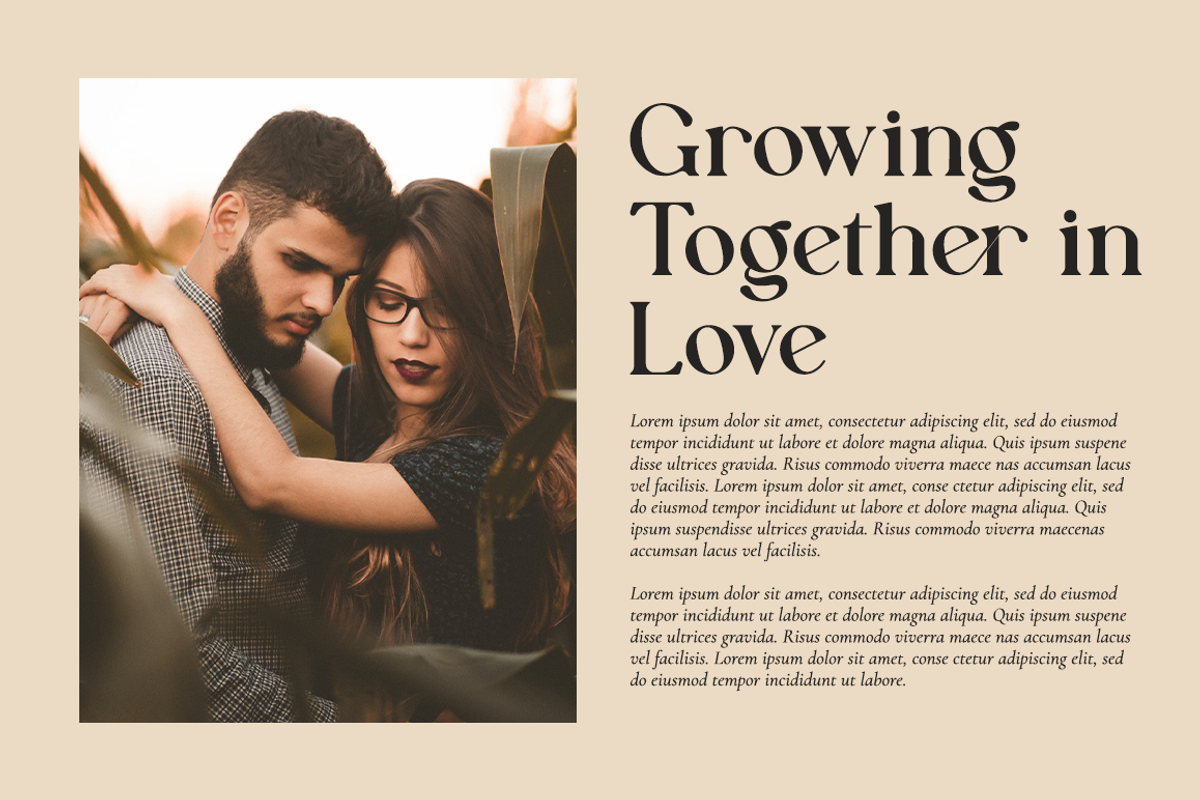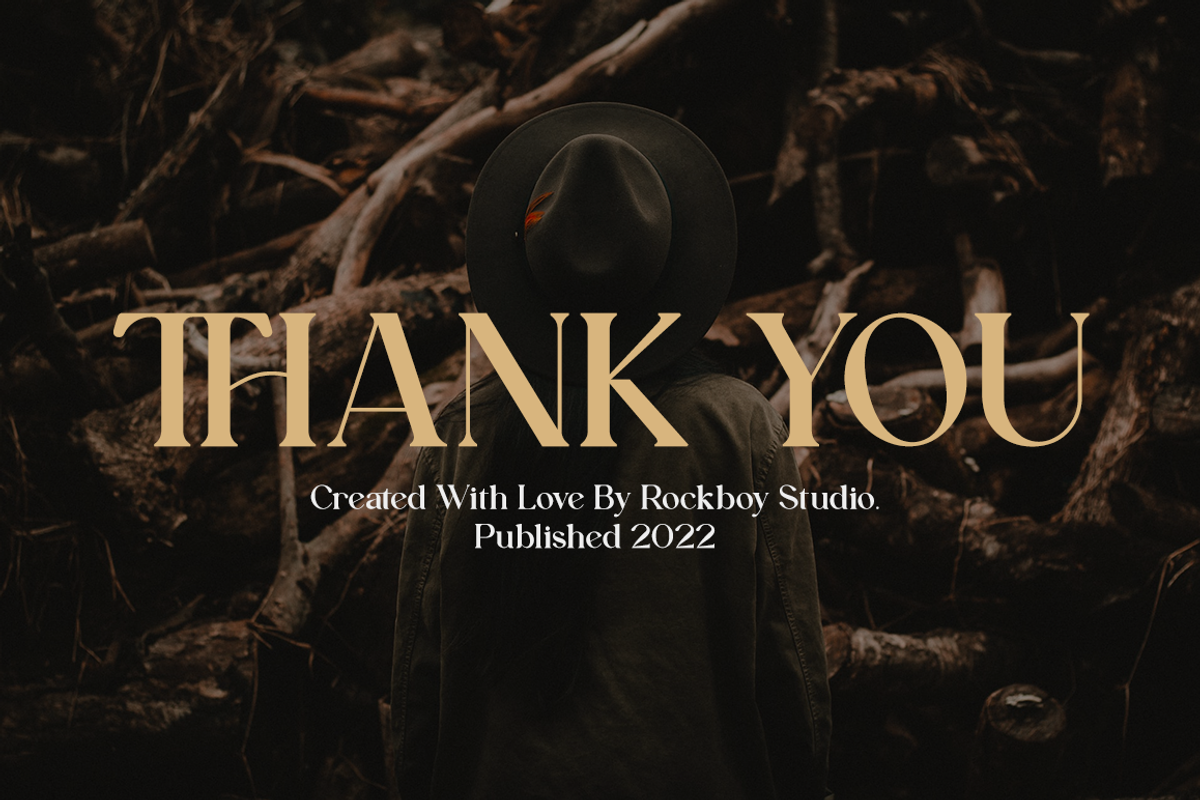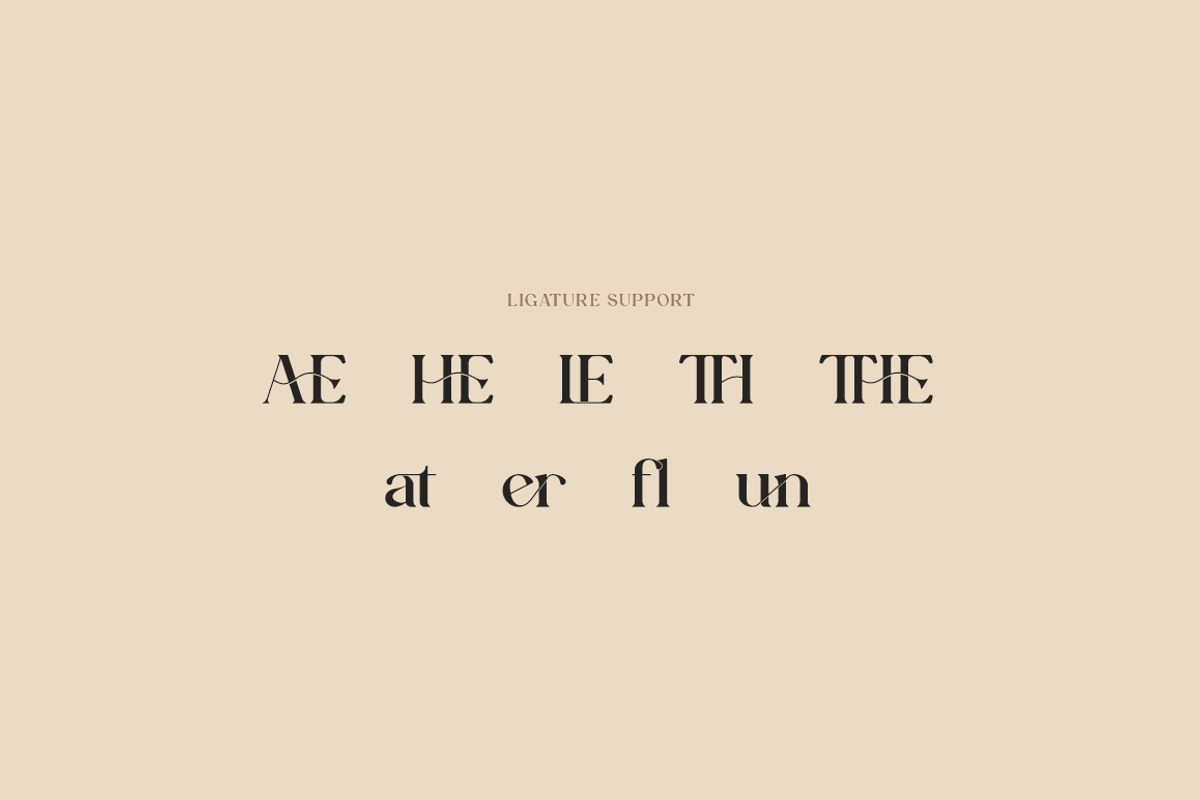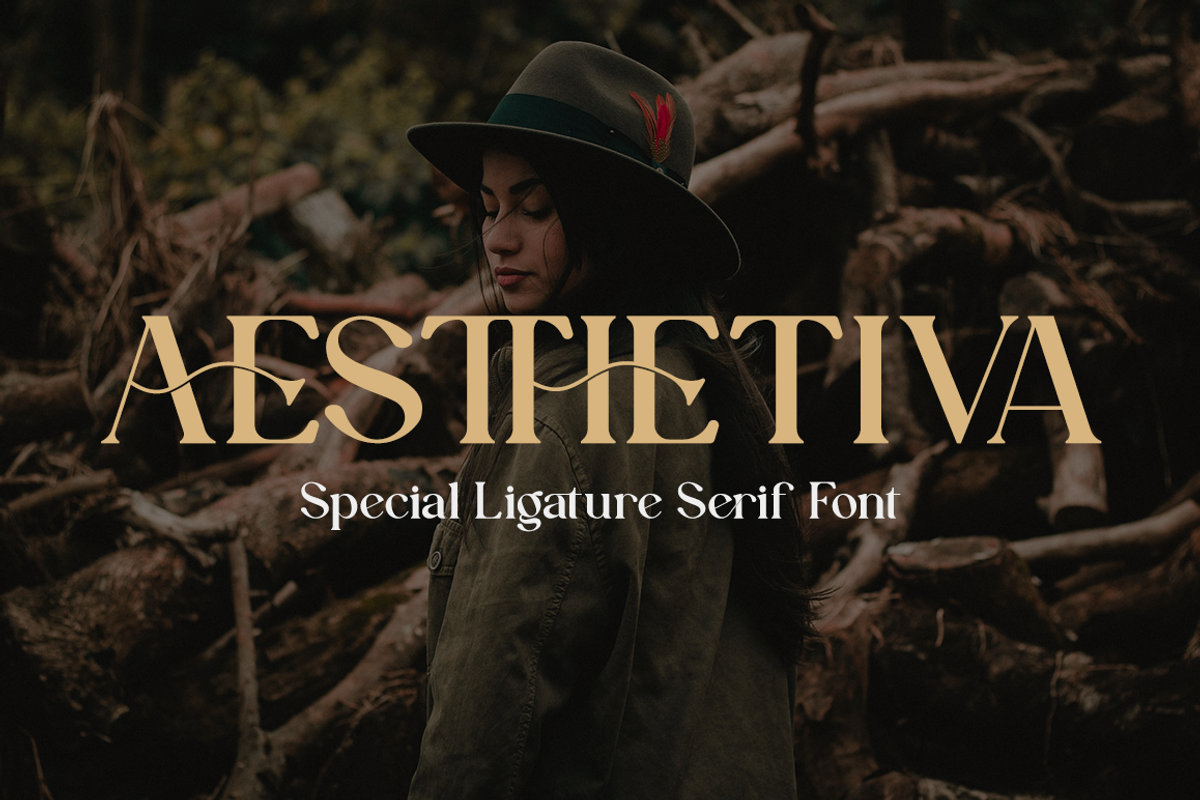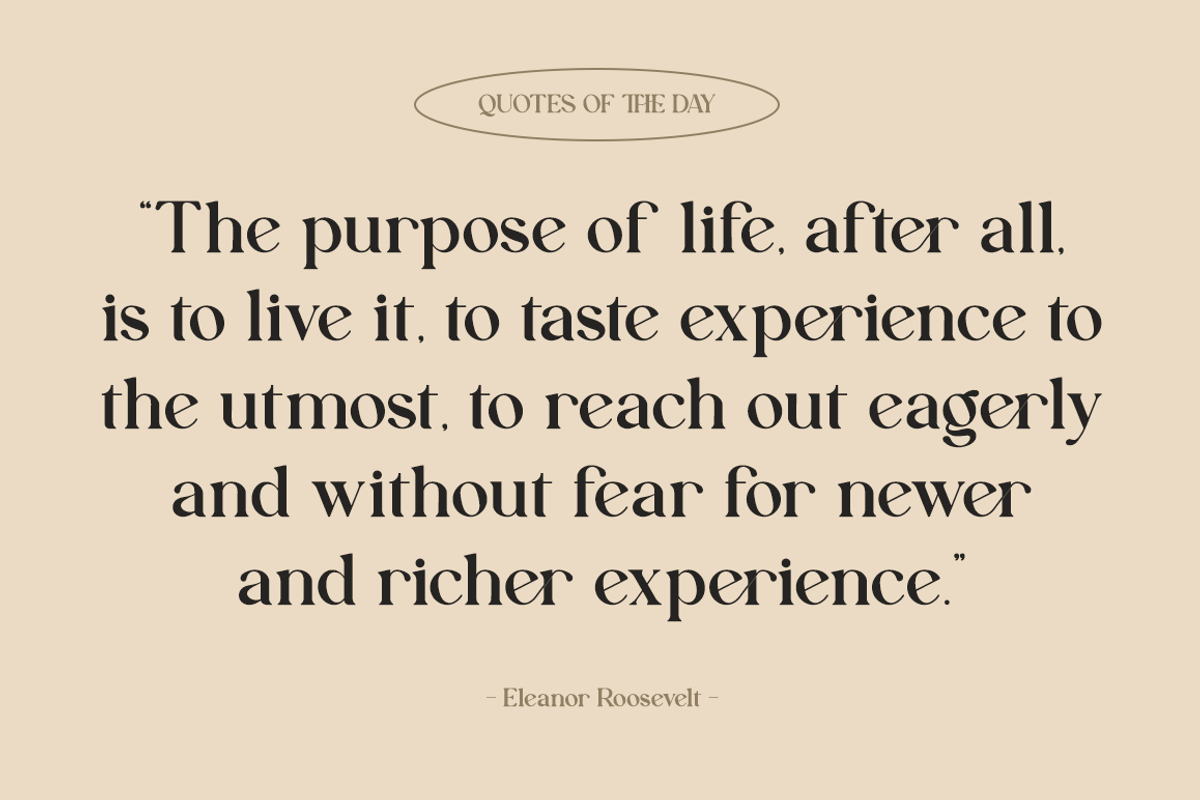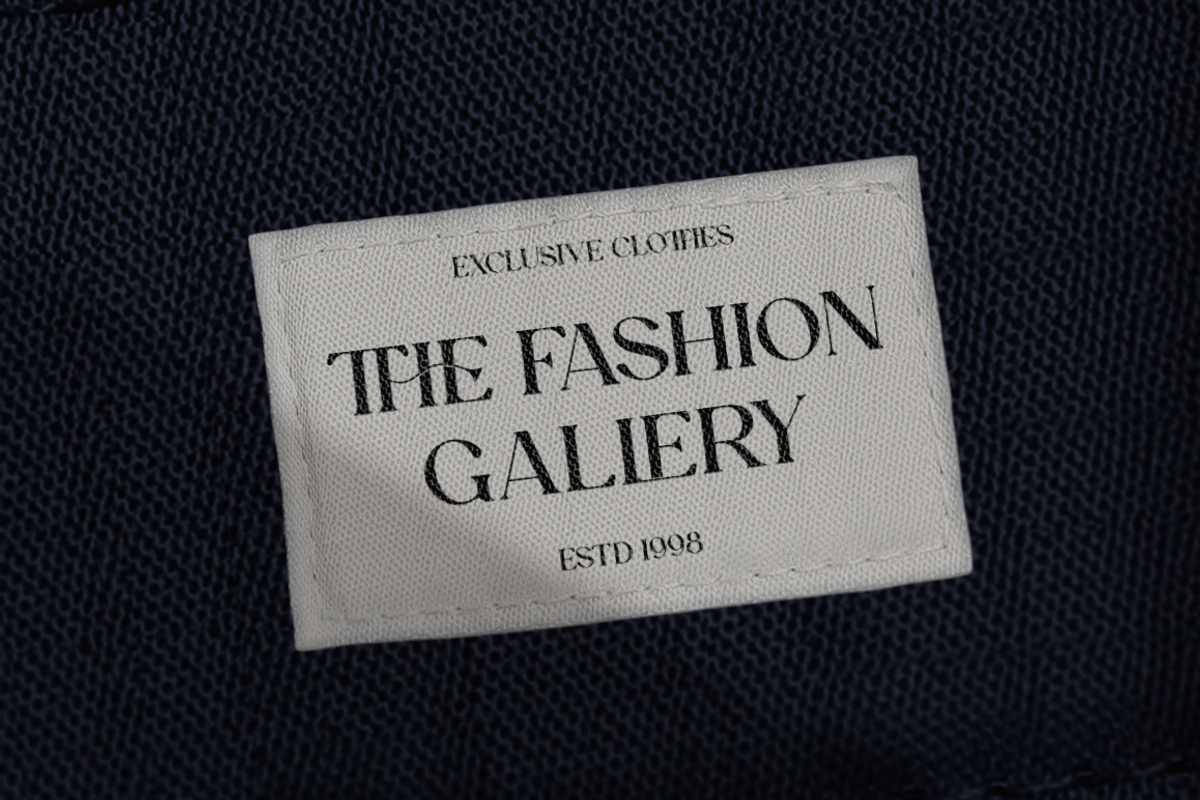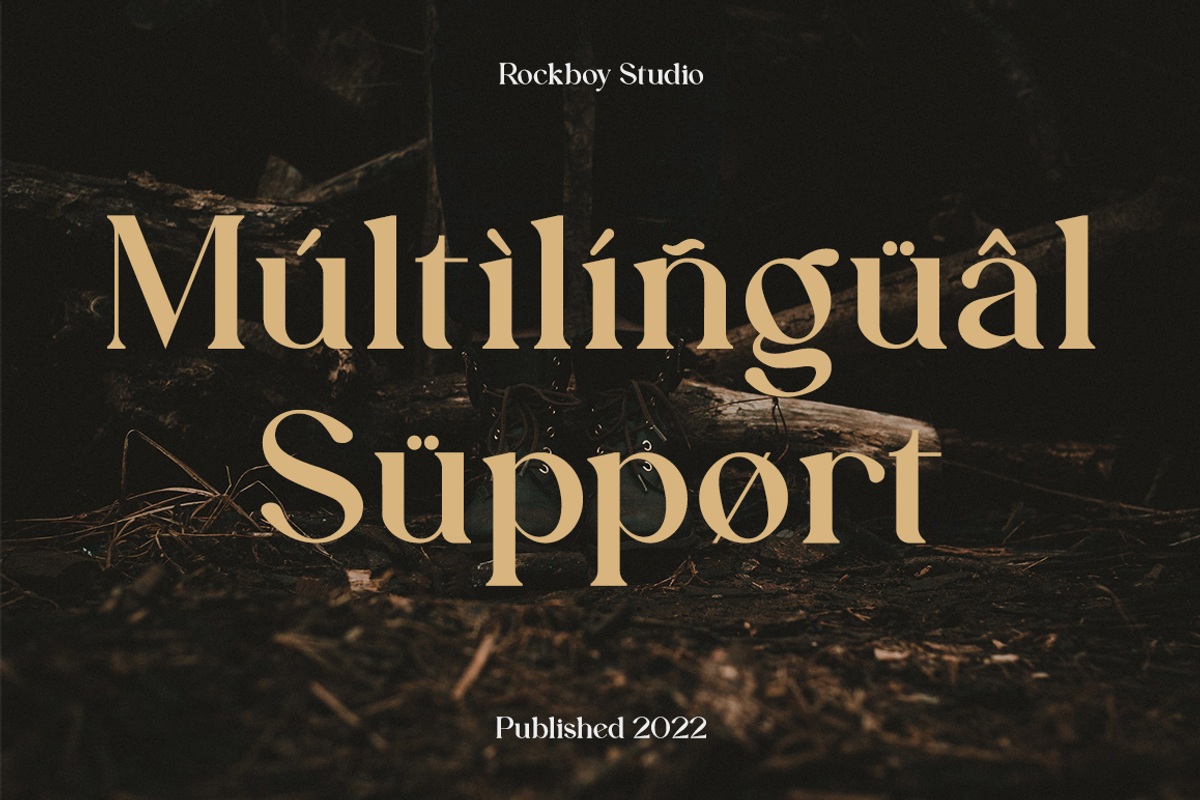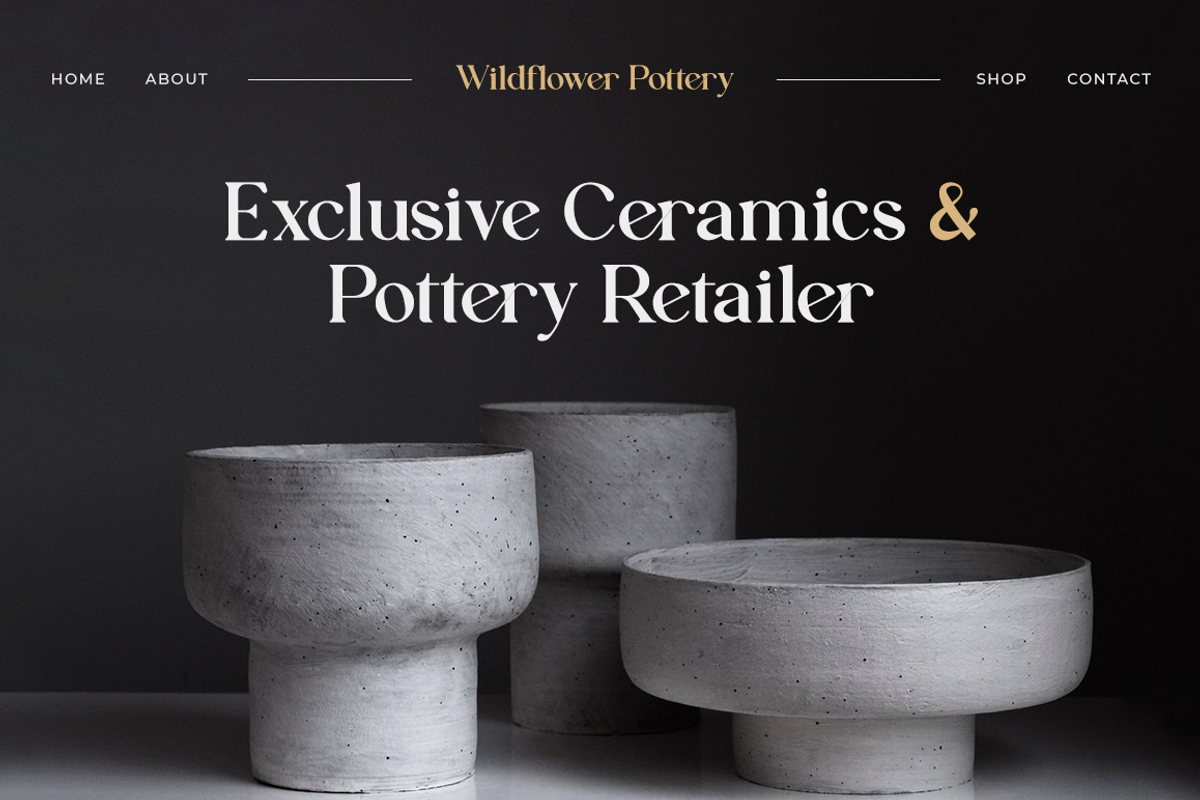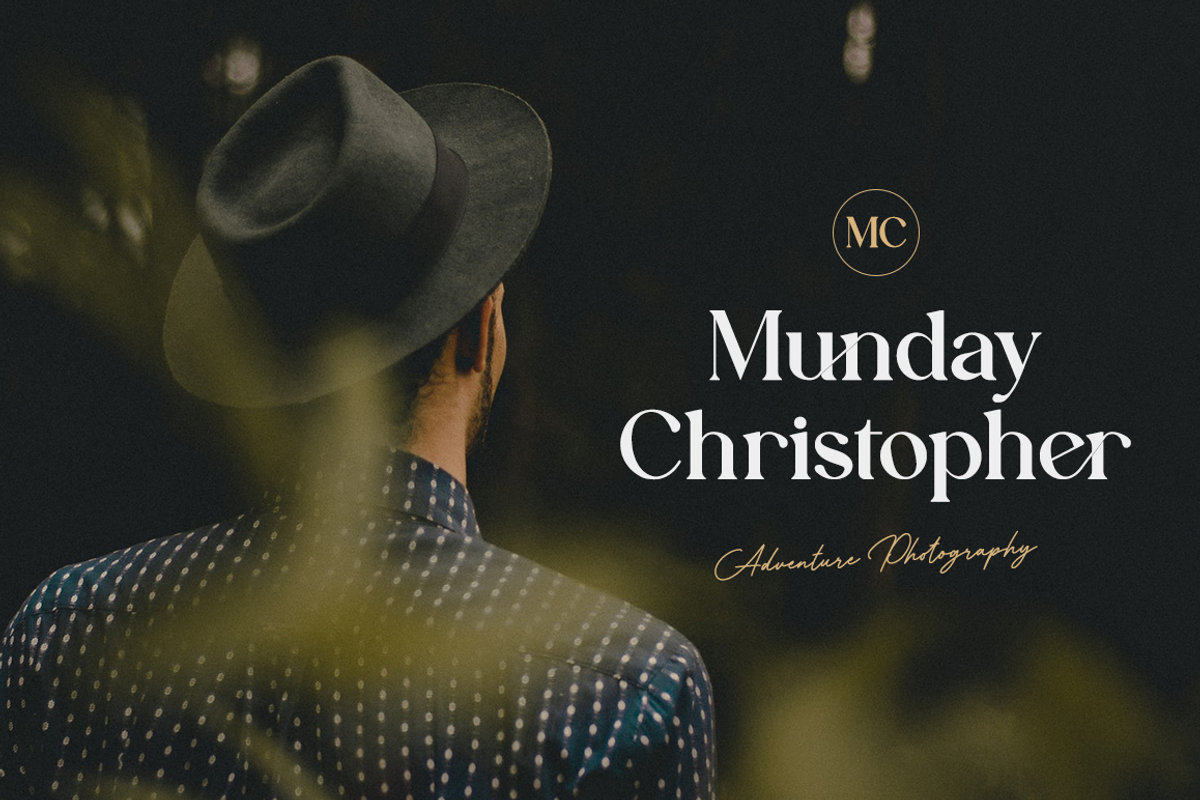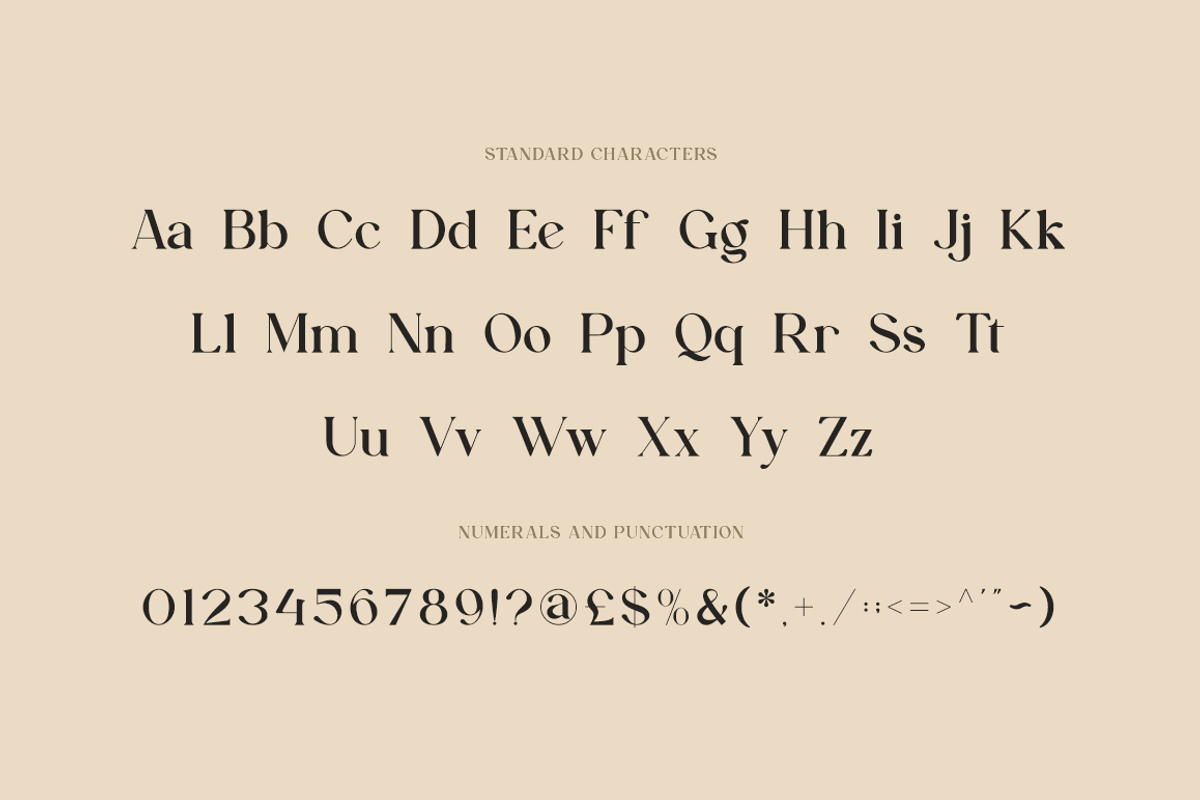
Aesthetiva - Elegant Serif Font
Aesthetiva is a stylish and elegant serif font. Fall in love with its incredibly distinct and timeless style and use it to create spectacular designs!